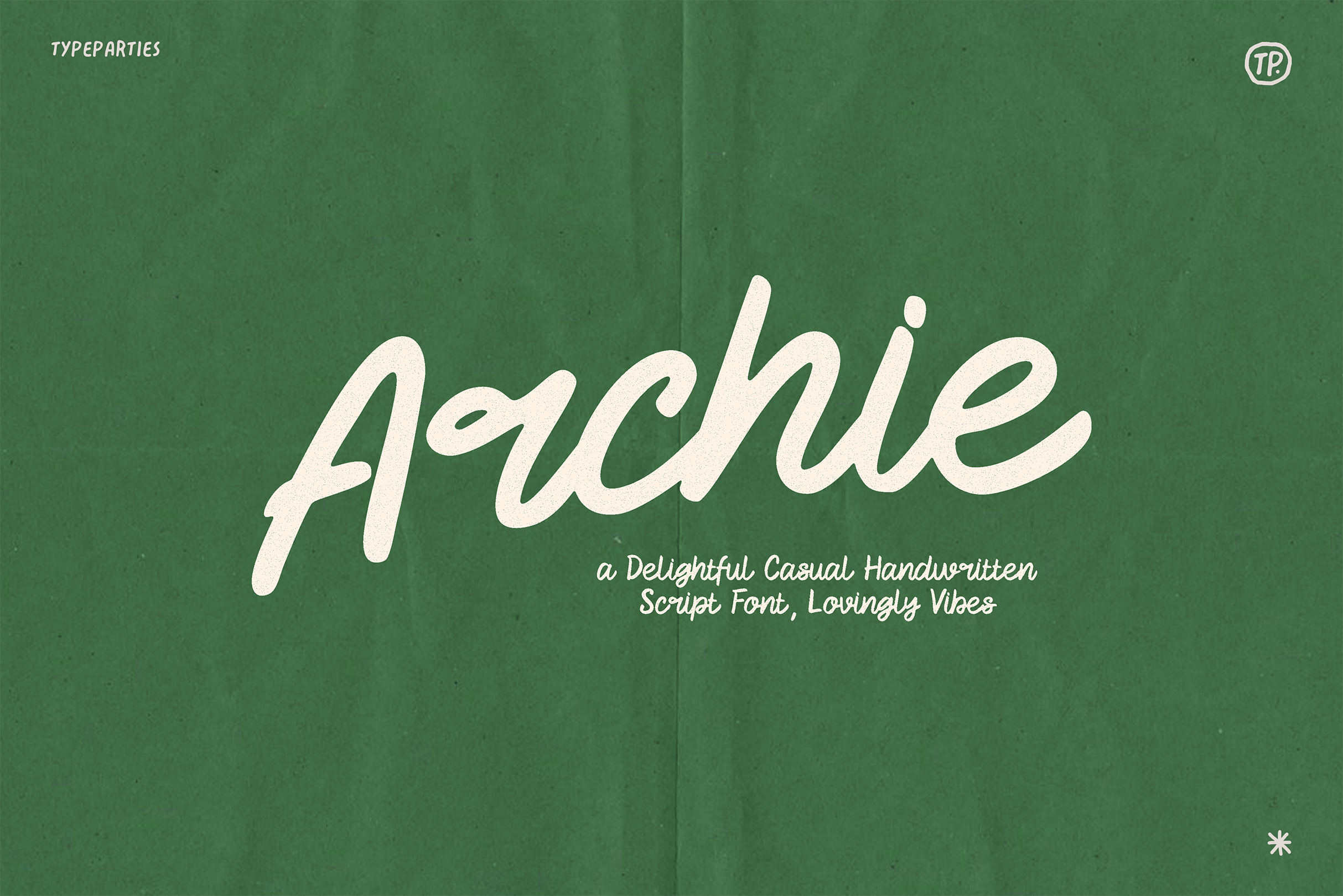
Archie Script Font
Hi.. Archie Font is a casual handwritten script font that exudes charm and playful curves, Every curve and stroke reflects the artistry of lovingly touch, resulting in a font full of personality and warmth. Its relaxed, flowing style is perfect for adding a personal and approachable feel to your designs. Whether you're creating logos, invitations, social media posts, or heartfelt messages, Archie Font effortlessly conveys creativity and charm. Bring a handcrafted essence to your projects with this versatile and expressive font."